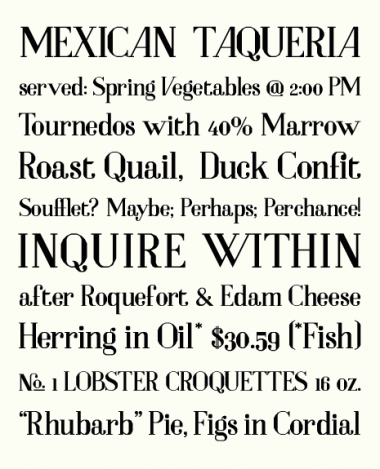
Temptation
Karolina Lach (sliveress)
A modern serif modeled on Bodoni.
Karolina Lach (sliveress)
Lovely,
lovely
LOVELY!
A sandwich board definitely displays all the delicious quirks to their best advantage. Tempting indeed.
intaglio
Exellent!